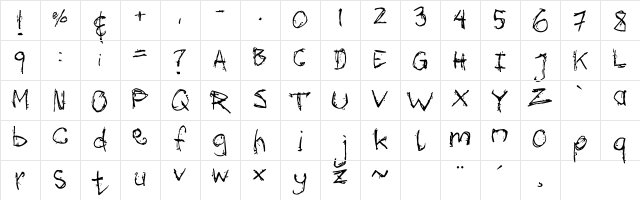
mozugushi Regular
Design Context for mozugushi Typeface
mozugushi is a composed and adaptable typeface that performs quietly and consistently across a wide range of design contexts.